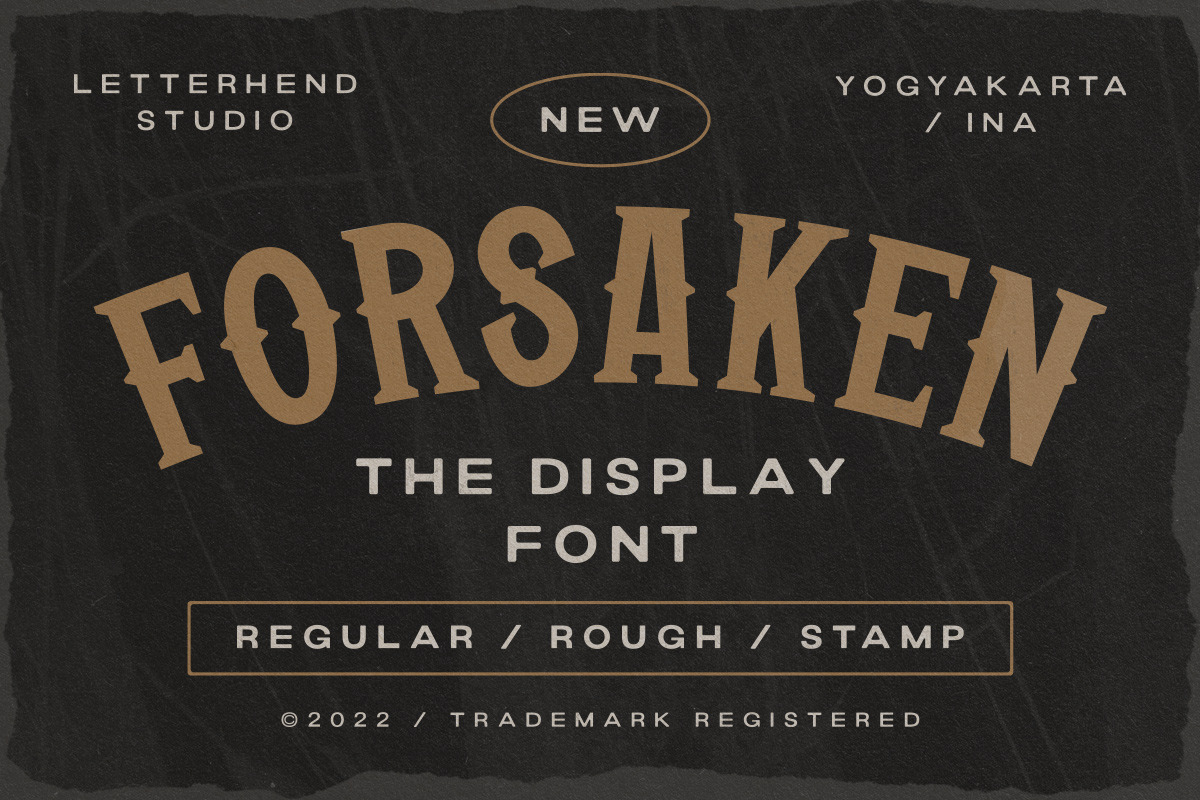
Forsaken - Display Font
Forsaken is a serif display typeface with a touch of vintage look and feel. This font comes with 3 styles : regular, rough and stamp. This type of font perfectly made to be applied especially in logo, headline, signage and the other various formal forms such as invitations, labels, logos, magazines, books, greeting / wedding cards, packaging, fashion, make up, stationery, novels, labels or any type of advertising purpose.